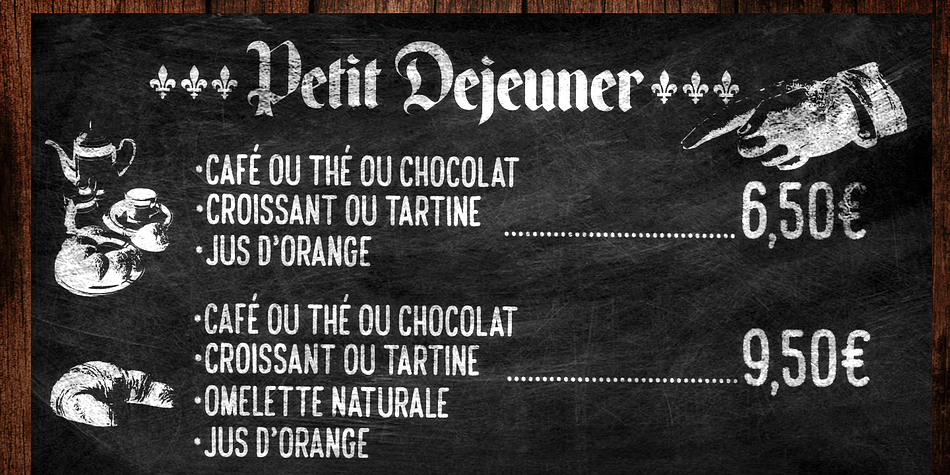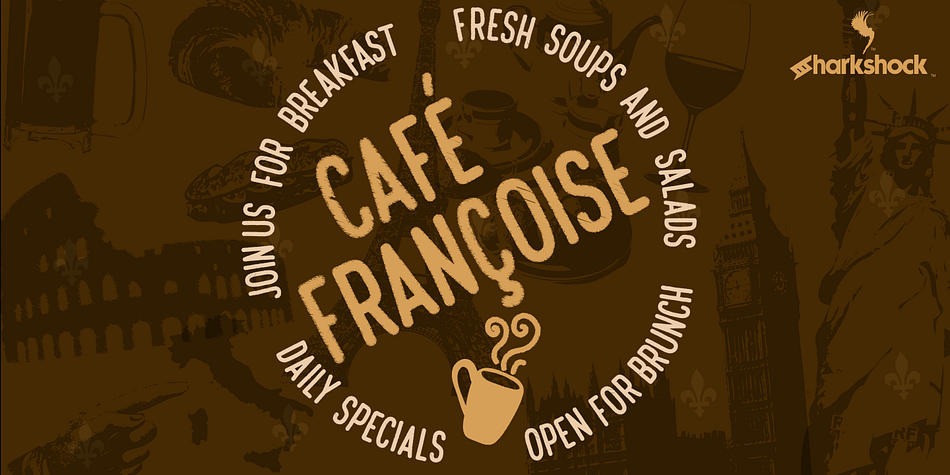
Café Françoise is a hand drawn and sans serif font family. This typeface has two styles and was published by Sharkshock.
A two font family. This contains every font in the Café Françoise Family.
This simple and charming display font was inspired by outdoor chalk boards that showcase an outdoor cafe’s specials all over Europe.It’s casual nature lends to a relaxation synonymous with lingering over an espresso.The glyphs are irregular and slightly eroded for a handwritten look. Basic Latin, extended Latin, diacritics and punctuation are included. You can pair pictured graphics if your application supports OTF features. Kerning is added as well. Use it for a company logo, menu, or poster.